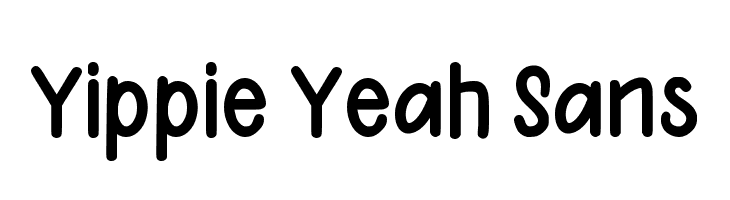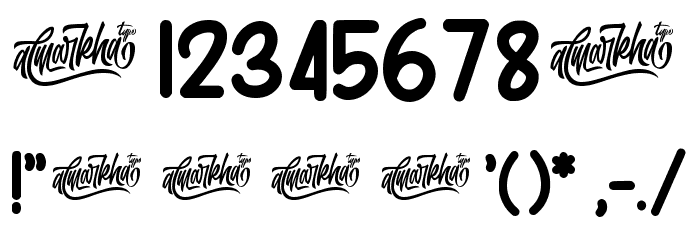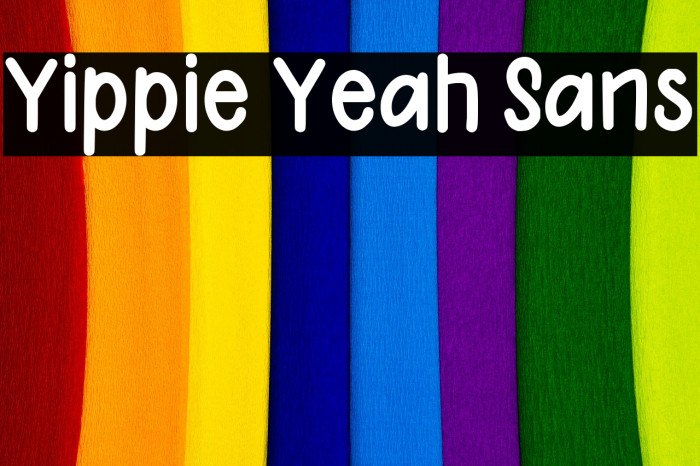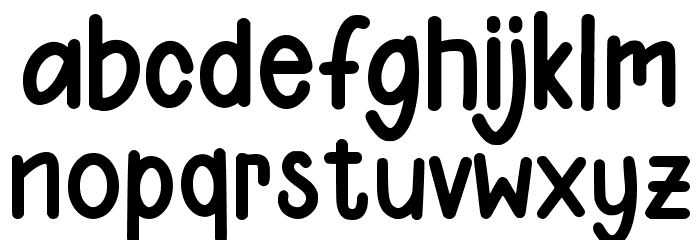
Yippie Yeah Sans Font
Yippie Yeah Sans Description
This playful and energetic font features a bold and rounded style that exudes a sense of fun and friendliness. The characters are slightly condensed, giving it a compact appearance while maintaining readability. The uppercase letters are uniform in height, with a consistent stroke width that adds to its approachable design. The lowercase letters mirror the playful nature of the uppercase, with smooth curves and a slightly whimsical touch. Numbers are clear and bold, matching the overall style. Special characters are included, maintaining the same lively aesthetic.
A bold, rounded, and playful font with a friendly and energetic style from Comic fonts.
- Proposed Projects: Ideal for children's books, playful branding, event posters, and any project needing a fun and approachable typeface.
- Overall Style: Playful